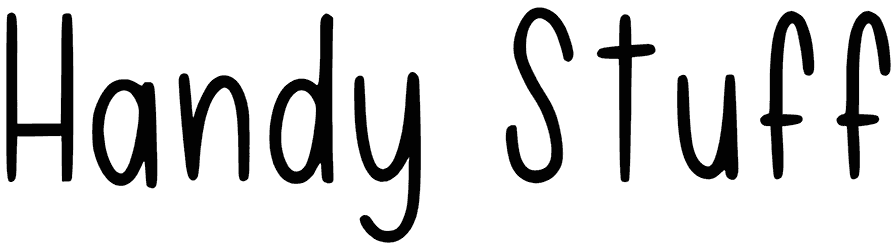
Handy Stuff Font
Modest and casual lettering would be a nice selection for varied titles, and this handwritten font provides you with such a chance. Handy Stuff font can adorn the words of a café menu board, a baby shower invitation card, a school poster, or whatnot. There is an almost full cover of characters, and it will turn this scrapbook font into a great choice for countless projects.